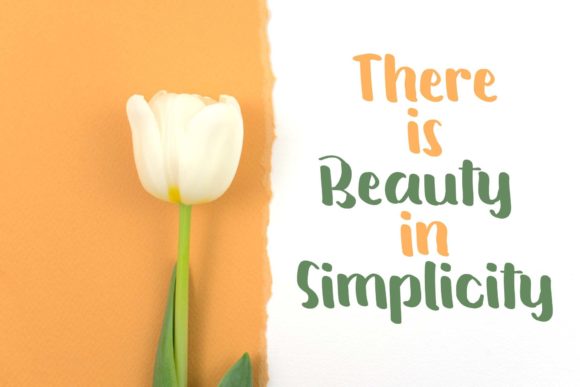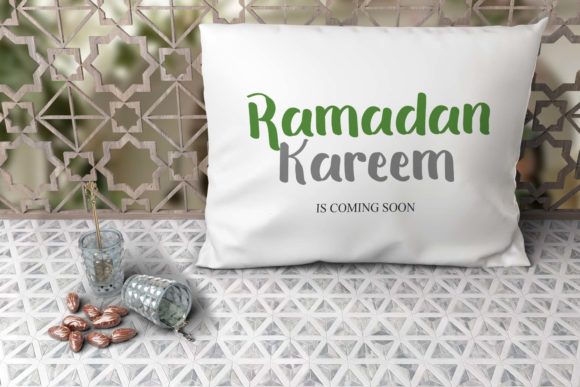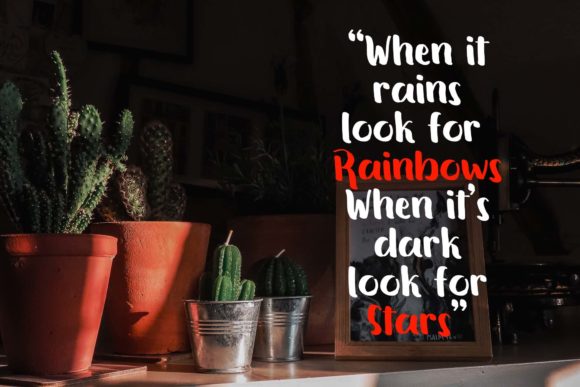
Introduction to Natural Handwritten Font
| 📌 Product Name | Natural Handwritten Font |
| 👤 Author | Doehantz Studio |
Enter the Natural Handwritten Font, a modern, bold, and stylish typeface that’s sure to captivate your audience. Its smooth curves and elegant lines make it perfect for fashion branding, editorial designs, or any project where a touch of personality is needed. Whether you’re working on a high-quality brochure or a free download for your clients, this versatile font is an invaluable addition to your design arsenal.
With its high-quality design and readability, the Natural Handwritten Font is an essential tool for any designer looking to add a touch of sophistication to their work. In this article, we’ll delve into the world of this stunning font and explore its many benefits – so let’s get started!
Key Features of Natural Handwritten Font
- Unique, high-quality design that mimics the look of handwritten text, making it perfect for creative projects and personal use.
- Features a transparent background, allowing for easy customization and placement in any design.
- Comes in 6 different styles, each with its own unique flair and character, providing a versatile design resource for any project.
- High-resolution design (300 DPI) ensures that the font remains crisp and clear, even at large sizes.
- Perfect for use in logos, typography-based designs, and other creative projects where a unique, handwritten look is desired.
Honest Review: Natural Handwritten Font
I recently came across the Natural Handwritten Font, and I was excited to give it a try in my next creative project. Upon downloading, I found the font to be a high quality design resource that can add a personal touch to any design.
What works well: ✨ The Natural Handwritten Font is incredibly versatile and can be used in a variety of contexts, from headings to body text. The font’s organic feel and subtle imperfections make it perfect for adding a human touch to your design. I also appreciate that it’s available for free download, making it an excellent resource for designers on a budget.
What’s not so great: ⚠️ While the font is great for most design applications, I found it to be a bit difficult to read at smaller font sizes. Additionally, the transparent background option can sometimes be tricky to work with, especially if you’re using a busy design.
Overall, I’m really impressed with the Natural Handwritten Font. It’s a fantastic design resource that can add a unique touch to your projects. If you’re looking for a high-quality, free font that can elevate your design, I highly recommend giving it a try.
- Perfect for adding a personal touch to your design
- High-quality and versatile font
- May be difficult to read at smaller font sizes
- Can be tricky to work with transparent background
Tips for Getting the Most Out of Natural Handwritten Font
Experiment with different font sizes and styles to add visual interest to your design. Use the transparent background to layer the font with other elements and create a unique design. Consider combining the Natural Handwritten Font with other design resources for a cohesive look.
Common Use Cases for Natural Handwritten Font
This versatile font is perfect for a variety of creative projects, including invitations, signage, and branding materials. Its high-quality design and transparent background make it easy to use in a variety of contexts, from digital to print.